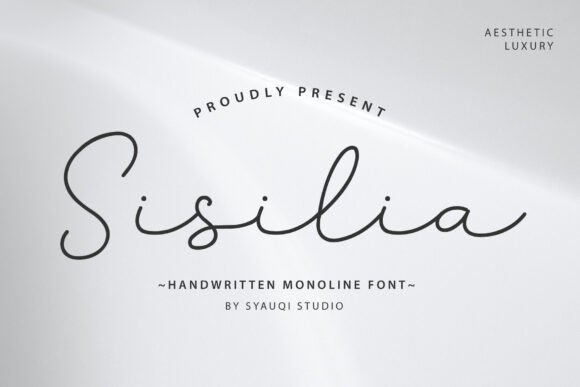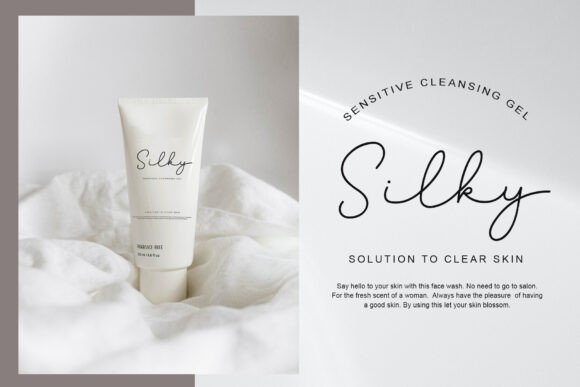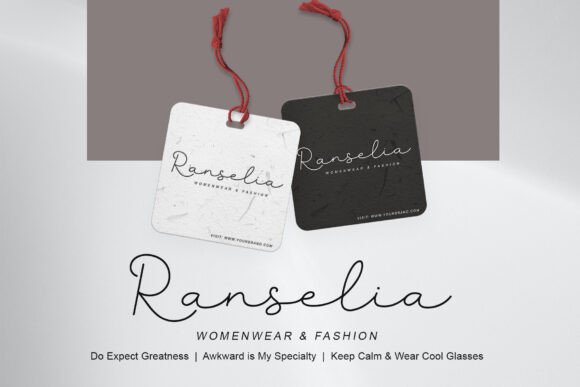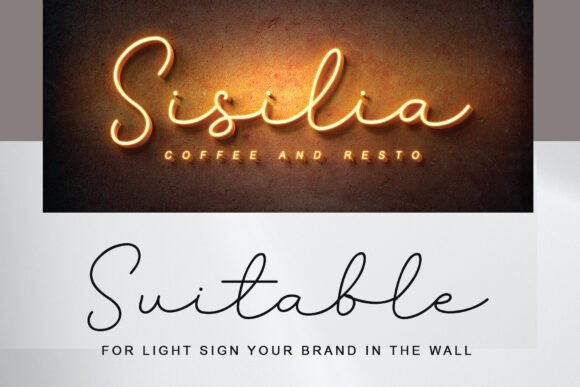
Sisilia Font
About the Sisilia Font
Let us introduce you to Sisilia Font, where timeless design meets modern craftsmanship. Sisilia is an exquisite handwritten font, masterfully designed to become a true favorite. It maintains its classy calligraphic influences while feeling contemporary and fresh. Fall in love with it and bring your projects to the highest levels!